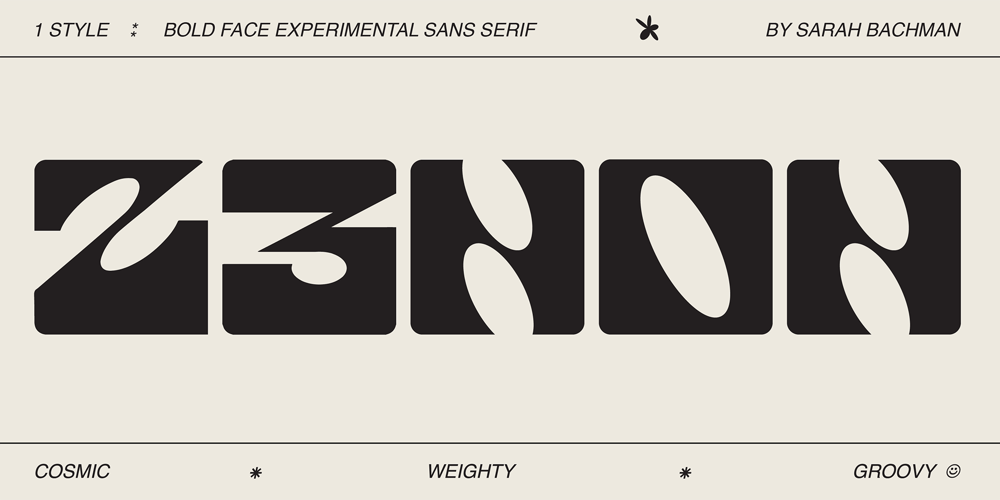
Z3non Font Family was designed by Sarah Bachman and published by SB type. Z3non contains 1 styles and family package options. A bold retro-future font ~ cosmic, weighty & groovy. Each letterform began with a rounded edge box as the base and ovals as a way to create negative space. In instances where the oval was not enough, a series of simple additional arced or straight cuts were made. What resulted is a unique and original font with a lot of personality. Stylistically, the font has a space-age vibe while possessing sleek, futuristic characteristics that ultimately make it feel fresh. It is not meant to be a go-to font for articles with a lot of text, but meant to expand ones library and in the right moment it will bring a lot of energy and major impact.Please note that this family has a limited character set and does not contain €, $, ¢, £, ¥ and other punctuation marks. Please check the glyphs tab to ensure this font will work for you!